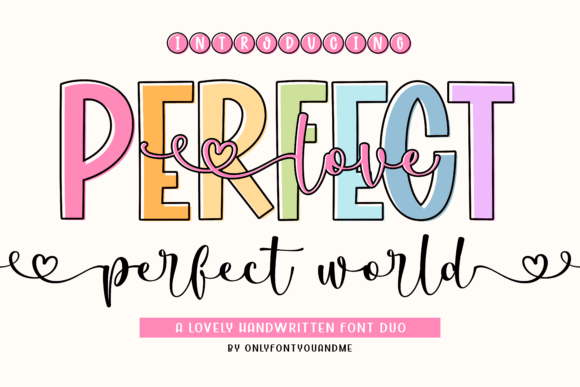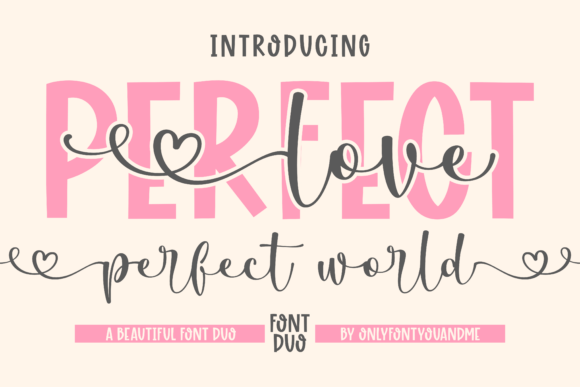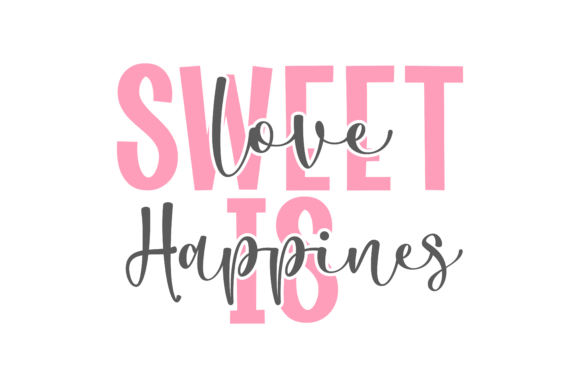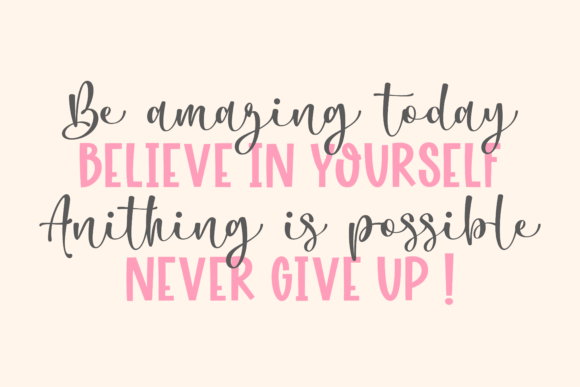
Perfect Love Perfect World Font
About the Perfect Love Perfect World Font
Elevate your designs with Perfect Love Perfect World Font, a font that combines sophistication with readability. This design showcases a playful and romantic font duo called “Perfect Love” and “Perfect World.” The primary font combines bold, uppercase sans-serif letters with a soft pink color, accented by delicate, cursive flourishes and heart shapes, giving it a charming, whimsical feel. The secondary script font features elegant, flowing handwritten-style lettering, further enhancing the romantic and delicate aesthetic. Together, these fonts create a harmonious, visually engaging look, perfect for projects related to weddings, invitations, love themes, or feminine branding. The overall design is warm and approachable, with a modern yet timeless appeal.
Perfect Love Perfect World Font Usage Examples
Perfect Love Perfect World Font Example